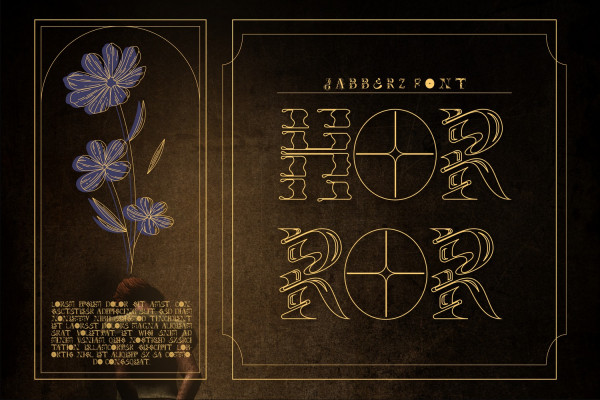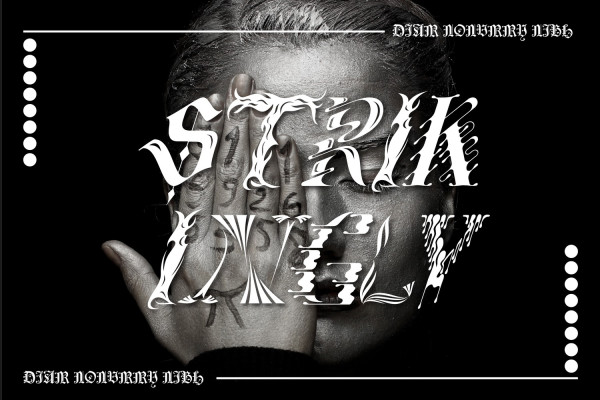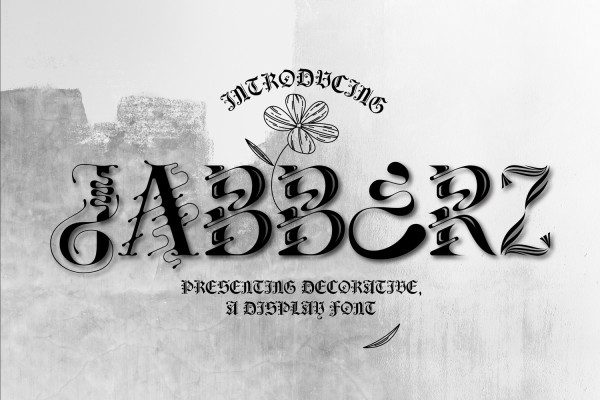
Jabberz Font
Jabberz Font is a unique serif decorative display font. The main keywords that characterize the art deco moment and the font are – luxury, clean lines, grandiose, elegant, modern, rich, geometric, progress and hope. This unique font also has many combinations of letters making it very interesting to read. It’s perfect to write big headlines, logos, artworks, merch, posters and more..